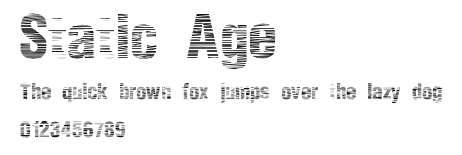
• Font Name: Static Age
• Designer: Digital Graphic Labs
• Description: A sans face composed of horizontally rolling static.
Static Age.ttf is a modern, elegant sans-serif font designed for ultimate readability and visual harmony. Perfect for branding, headlines, web design, and print materials.